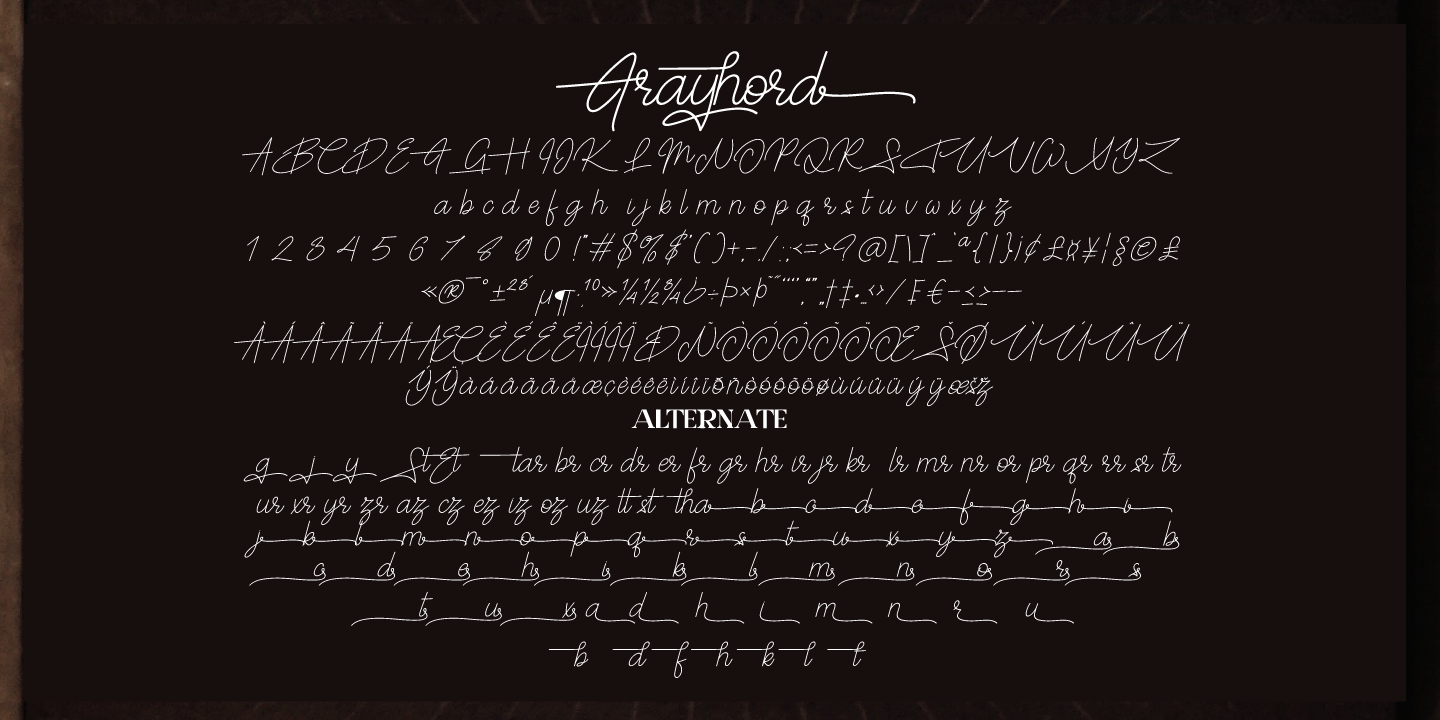
Frayhord Monoline Font is perfect for branding projects, logo design, wedding invitations, social media posts, advertisements, product packaging, product designs, labels, photography, watermarks, special events, and any project that requires a handwritten touch with elegant appeal.
What makes Frayhord Monoline Font exciting is its seamless blend of modern sophistication and handcrafted charm. This versatile typeface features smooth, flowing strokes that create a premium look while maintaining excellent readability across all design applications. The font's unique character adds personality to any project, making it stand out in today's competitive design landscape.
Frayhord Monoline Font comes in multiple font families including Regular, Bold, Italic, and Light variations, providing designers with comprehensive options to match their creative vision and project requirements.
Whether you're working on corporate branding, creative advertising campaigns, or personal projects, Frayhord Monoline Font Free Download offers the perfect solution for designers seeking a contemporary yet timeless aesthetic. This font's versatility makes it an essential addition to any designer's toolkit, suitable for both print and digital applications. The clean lines and elegant curves of Frayhord Monoline Font ensure your designs communicate professionalism while maintaining visual appeal that captivates audiences across various platforms and mediums.